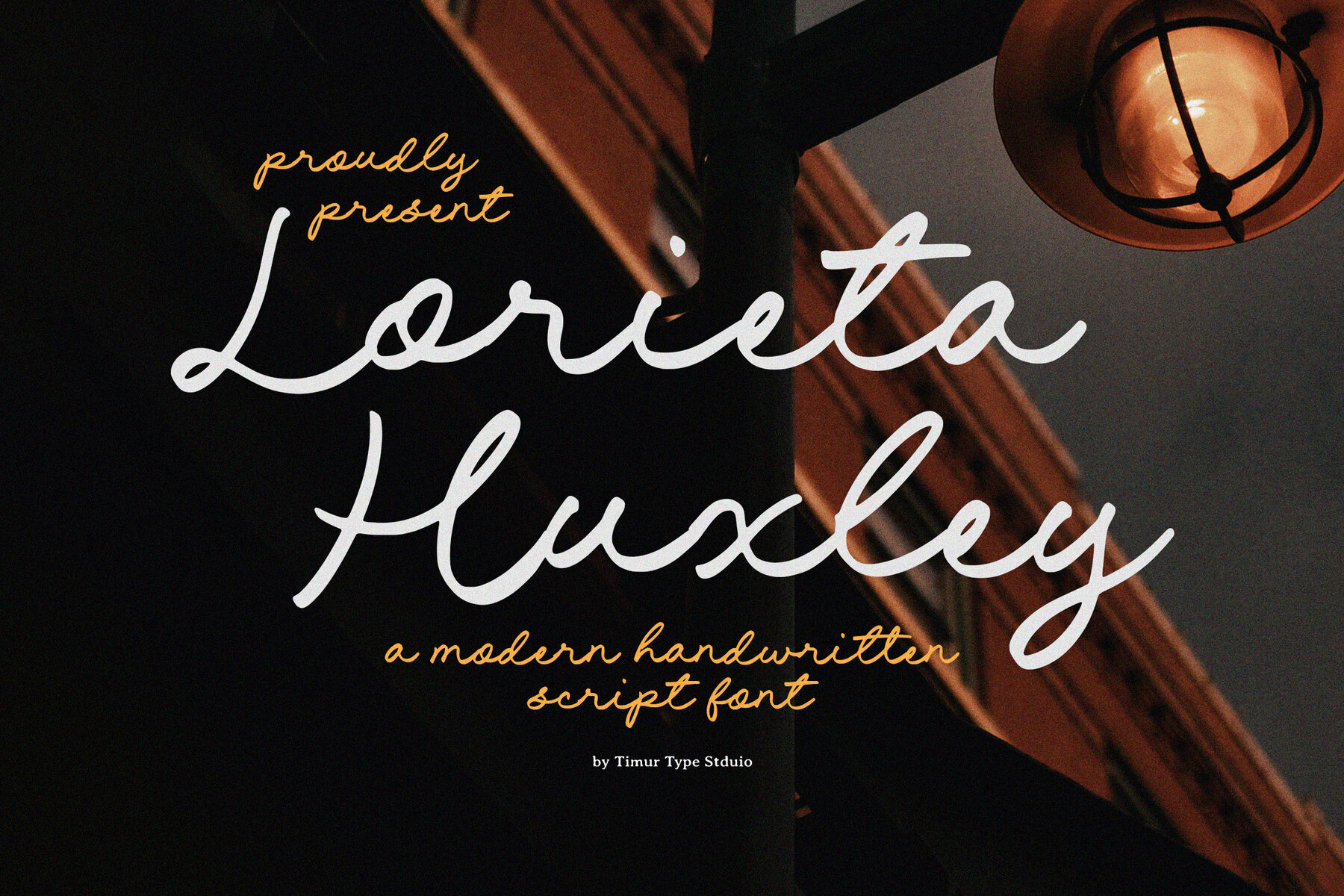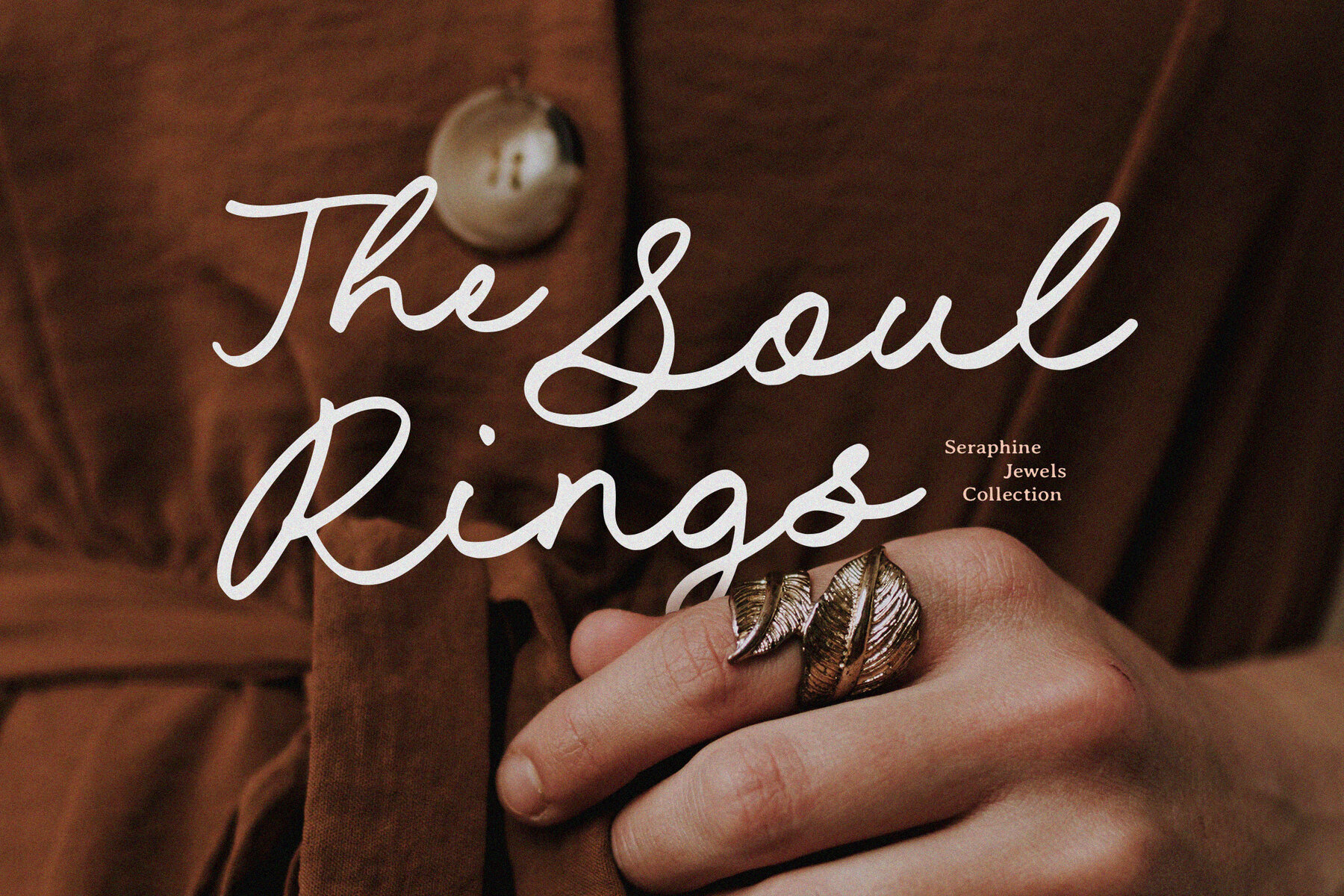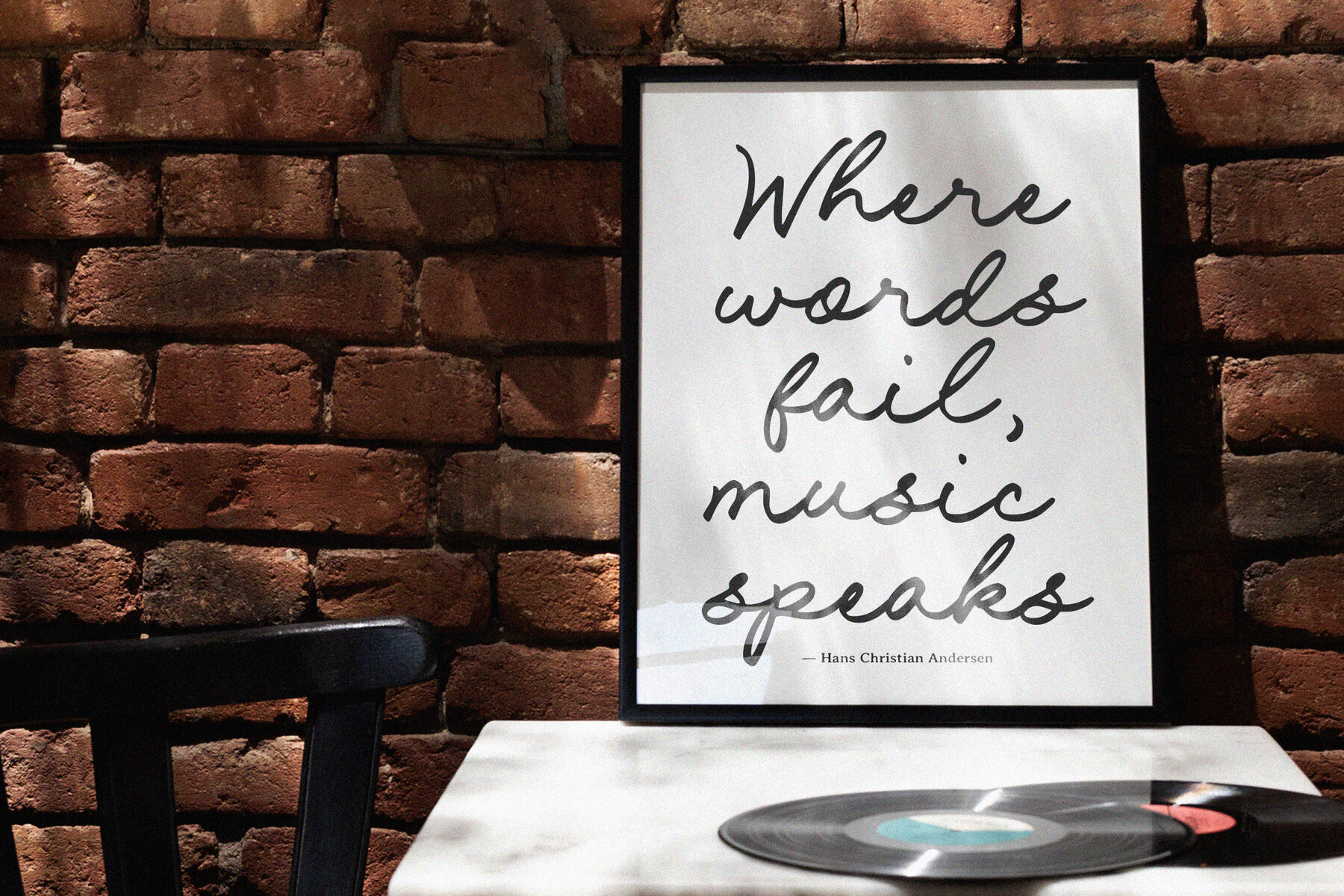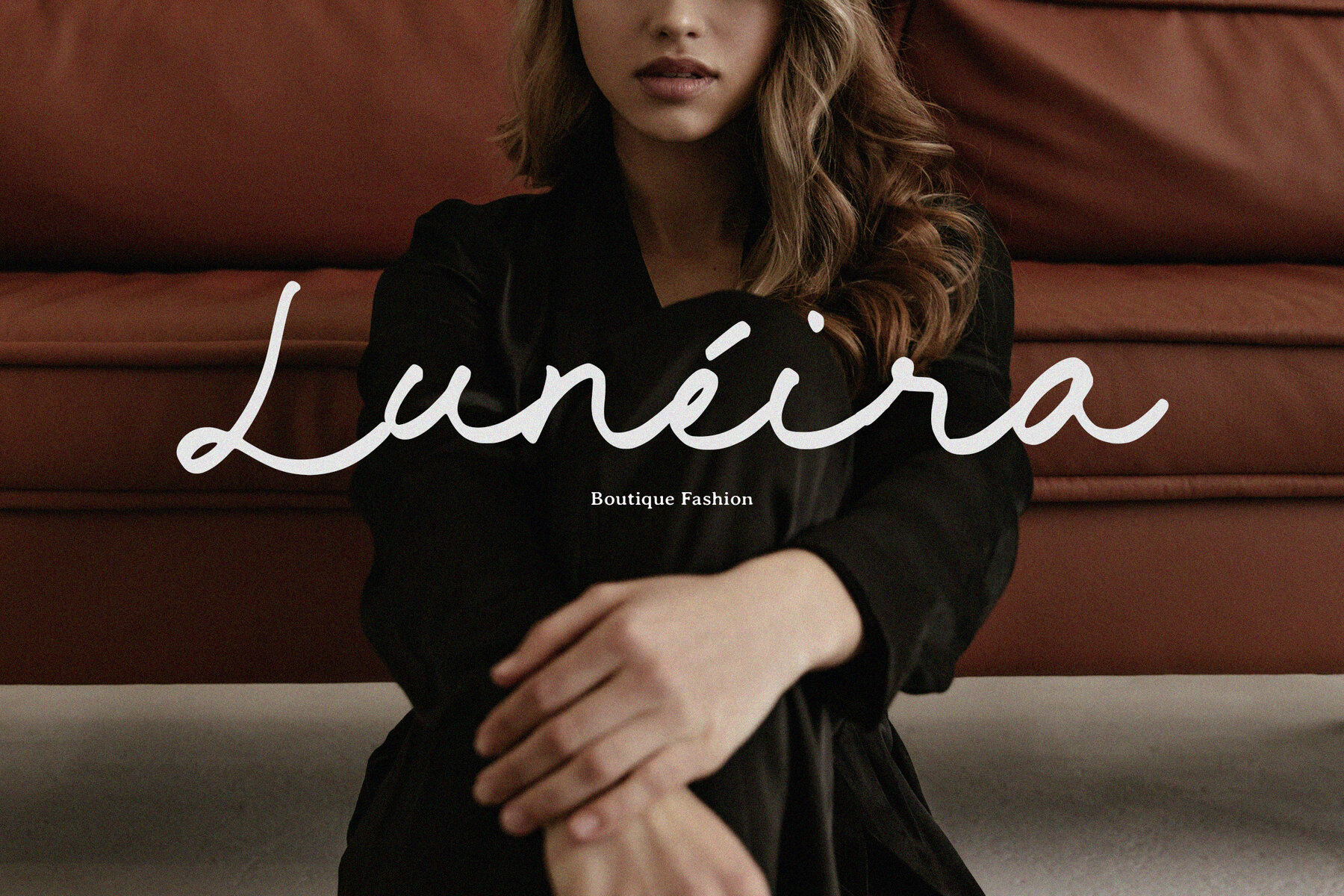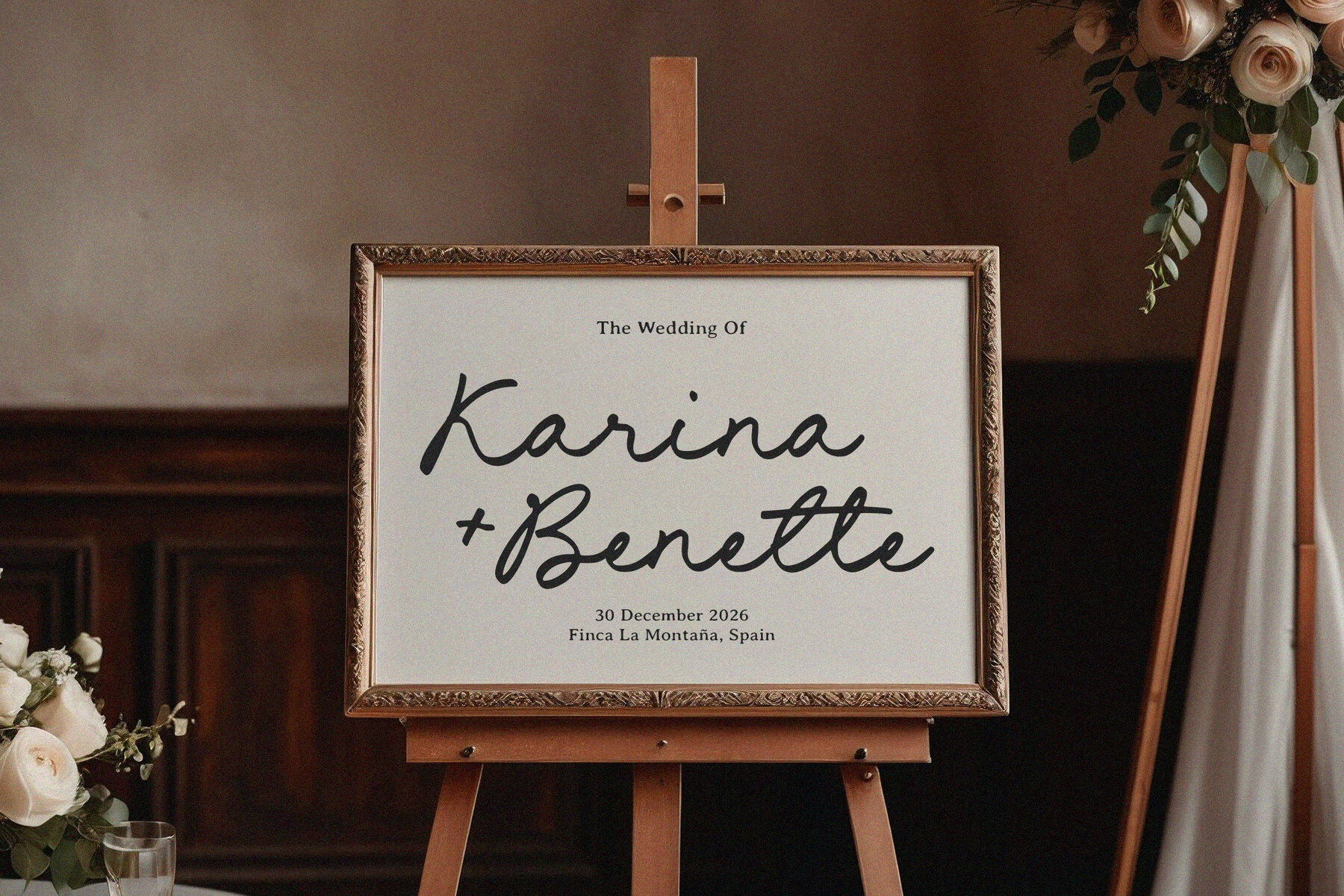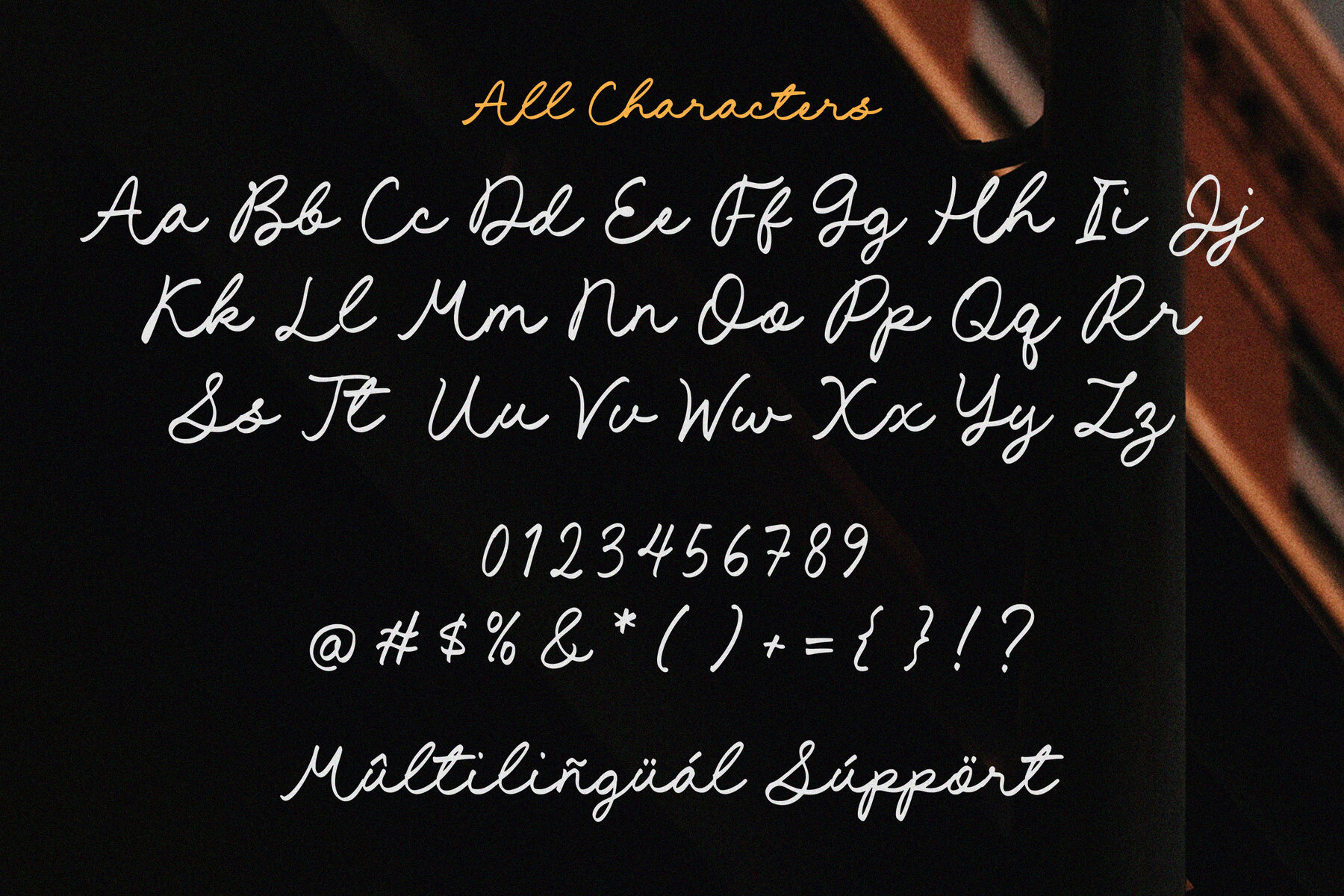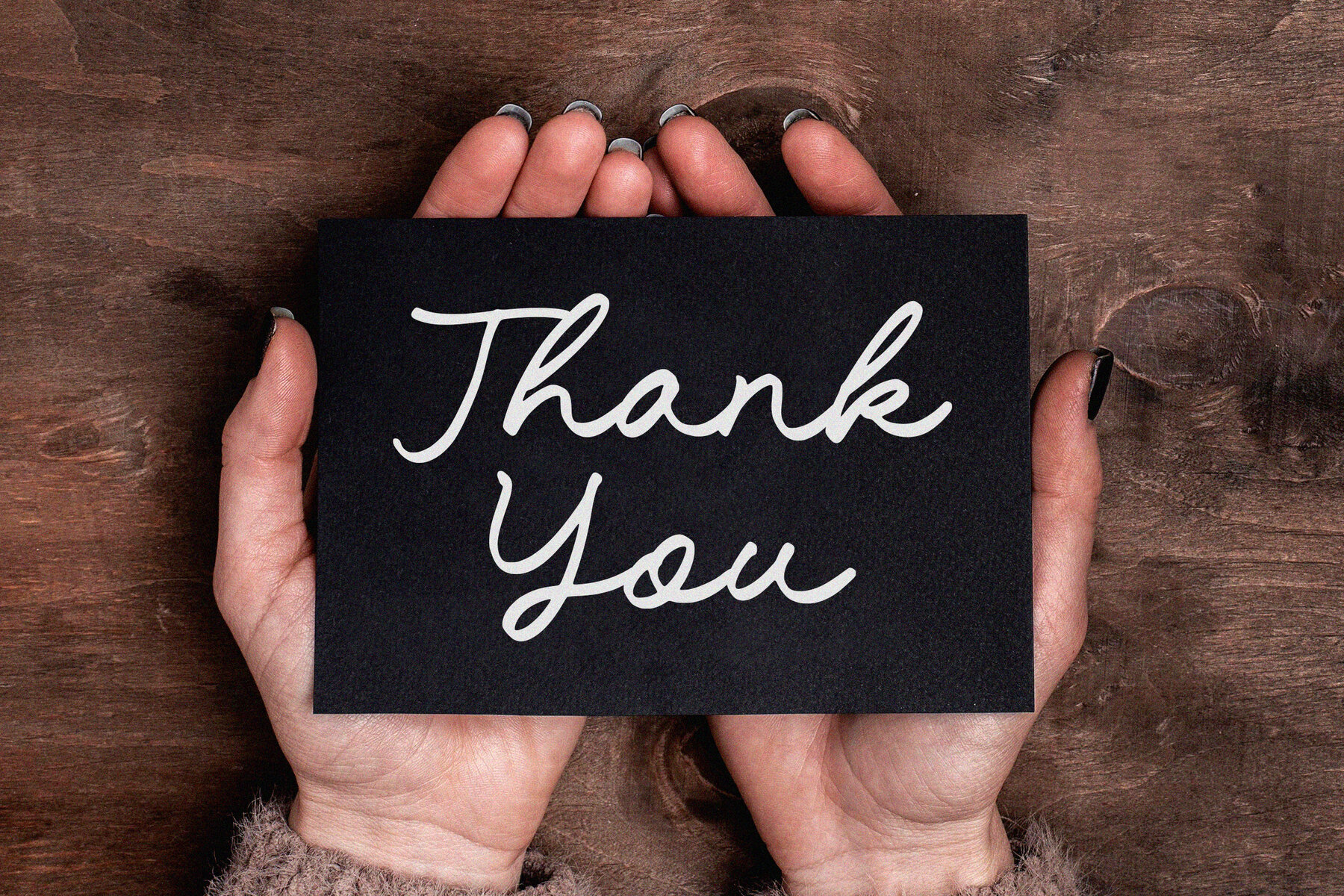
Lorieta Huxley Font
Lorieta Huxley
Infuse your designs with the refined elegance of Lorieta Huxley. This modern handwritten script font combines smooth curves with stylish swashes, striking a balance between sophistication and playfulness. Ideal for branding, wedding invitations, and social media graphics, it offers a personal, handcrafted touch to any creative project.Lorieta Huxley: Elegant Handwritten Script with Flowing Charm